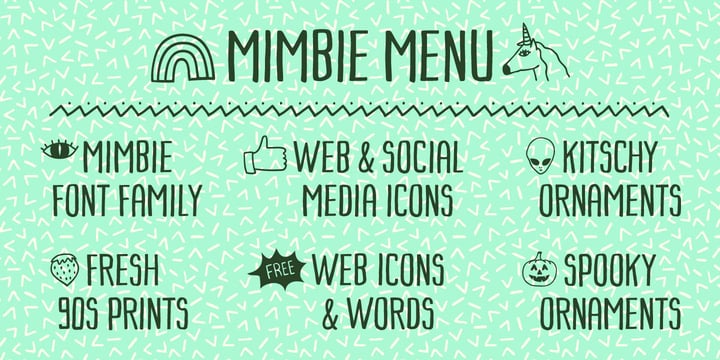
Cultivated Mind
“I think that what makes Cultivated Mind unique is it offers a lot of different styles of handmade typefaces,” says the foundry’s owner and primary designer, Cindy Kinash. “Cultivated Mind doesn’t have one distinct style, as it is constantly evolving and trying to release fonts that you haven’t seen before.”
Based in Vancouver, British Columbia, Canada, Cindy started Cultivated Mind in January 2012, after having spent most of her career up until then working as an apparel graphic designer. Her foundry’s first font, Hello I Like You, was released that same month. In just the few years since then, Cindy’s young foundry has produced an astounding 16 typefaces; several of which have topped the Best Sellers list. Luckily, she hasn’t had to do all of that work alone. Finding inspiration in working with other type designers, she collaborated with Charles Gibbons on both Ciao Bella and True North: two of her most successful designs to date. True North has been a bestseller at MyFonts and topped our Hot New Fonts list upon its release in the summer of 2014.
Another of Cindy’s most popular fonts is Pacific Northwest: a typeface that, like everything released by the foundry, was created by hand. What makes this font so unique though, is the fact that it was created with the careful strokes of a paintbrush.
Cindy says that fans of her foundry have a lot to look forward to in the future, including more collaborations with other talented type designers and lettering artists. “Cultivated Mind will produce a new variety of fonts you haven’t seen before,” she says. “We will offer fonts with more alternate letters so that customers can create their own unique hand lettered look.”